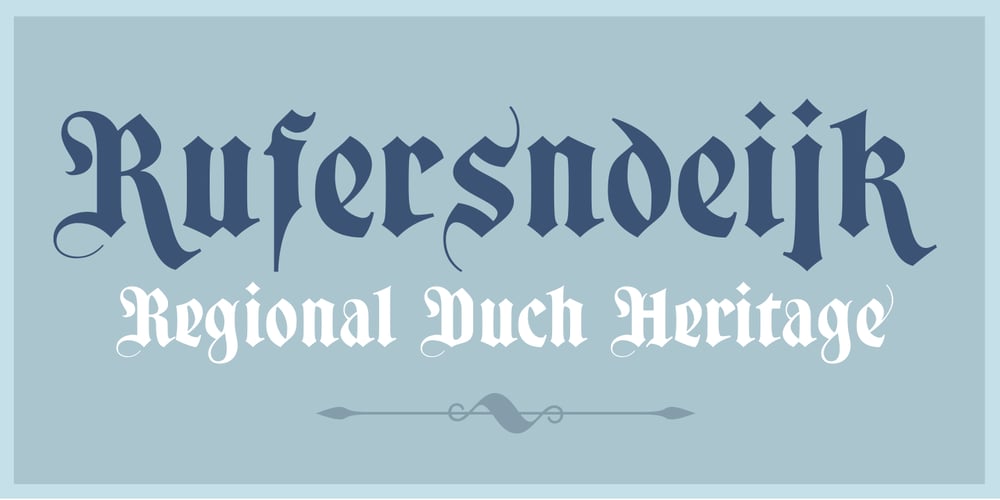
Fractus Font Family was designed by Olcar Alcaide and published by Eurotypo. Fractus contains 1 styles and family package options. The requirements of Middle Ages scribes who copied and produced books in monasteries were fundamentally to preserve space, due to the high cost of the writing surface. During this long period of the development of Gothic forms, many other variations of the style of black letters appear: Textur or “Gothic-antique”, another group called Rotunda preferred by Italian and Spanish scribes. In 1490, the style “Bâtarde” (according to the the French classification) began to be widely used in Germany with more rounded shapes and named Scwabacher (probably derived from the city of Schwabach, but not certified) Fractur is a more condensed and narrower form than Schwabacher. This style is attributed to Johann Neudörfer of Nuremberg, cut in 1513; it was quickly imitated, therefore a few years later became to be a German national identity that extended over the next four centuries. The shape of its characters can be considered as a fusion of Texture and Schwabacher: the lowercase actually has medium strictly vertical and half curved strokes. The first expressions of the baroque influence this writing whose appearance of movement is due to the ornaments applied to the uppercase letters and the ascending and descending features of the lowercase. Despite having spent so many years and being a typeface not suitable for extensive reading texts, the Gothic Fractur has endured over time for possessing a strong and solid characteristic, as well as being closely linked to the spirit of gothic cathedrals of countries in northen Europe. In fact, it is probably that this expressive feature leads them to be chosen in the most varied graphic communication needs, which run from from banks and financial companies, insurers, law offices, publishers, newspapers and TV networks, till alcoholic drinks, funeral tombstones, packaging and even tattoos.